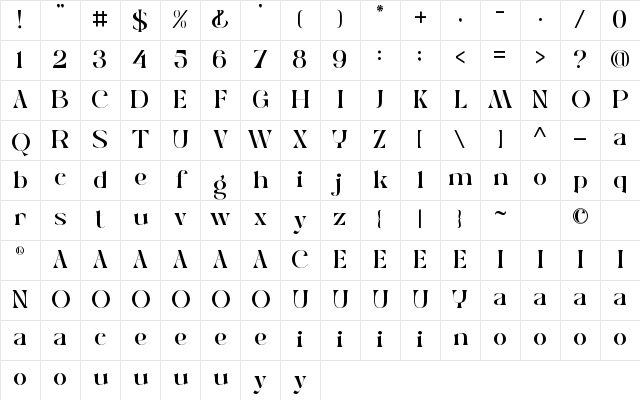
KOLAK Regular
Designer: Toni Studio
Design Context for KOLAK
KOLAK is a composed and adaptable typeface that performs quietly and consistently across a wide range of design contexts.